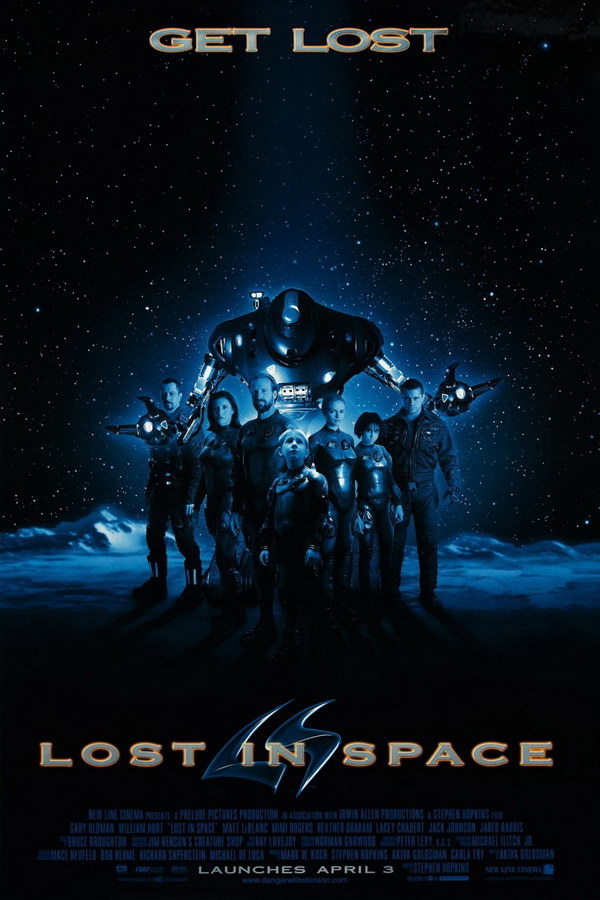
Lost in Space Font
FantasyLost in Space is a 1998 science fiction film about the Robinson family who are sent on a mission to colonize a new world but end up stranded in space after their ship is sabotaged.
The "Lost in Space" title font on the poster is most likely Copperplate Gothic 33 BC, which was originally created by Frederic W. Goudy for American Type Founders in the early 1900s. You can learn more about the font here.